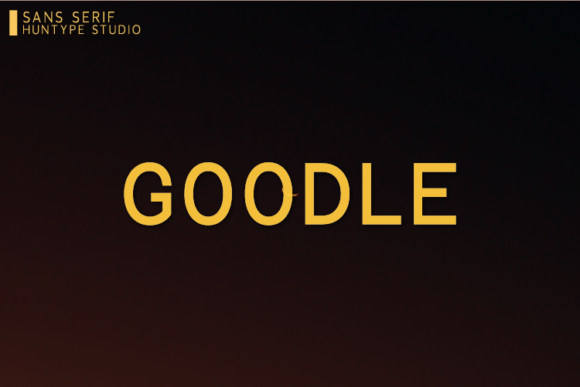
Have you ever stared at a blank canvas, struggling to find the right font to bring your design to life? I’m sure you have. We’ve all been there – pouring over font options, tweaking sizes and styles, and still, nothing seems quite right. But what if I told you that there’s a font that can effortlessly elevate your designs and make them stand out from the crowd?
Enter the Goodle Font, a sleek and modern sans serif font designed to complement a wide range of creative projects. With its clean lines and minimalist aesthetic, the Goodle Font is the perfect choice for designers looking to add a touch of sophistication to their work.
Goodle Font Key Features
- Unique Characteristics: The font features a unique blend of geometric and organic shapes, resulting in a clean and modern aesthetic.
- Font Metrics: The font’s x-height and cap height are carefully designed to ensure readability and consistency across different weights and sizes.
Goodle Font Review
As a designer, I was excited to dive into the Goodle Font and see what it had to offer. Overall, I found it to be a solid choice for body text and headings, but with some notable limitations.
- Goodle Font has a clean and modern aesthetic, making it perfect for a wide range of digital applications.
- The font’s x-height is well-balanced, ensuring readability even at smaller font sizes.
- The font’s weight system is comprehensive, with a clear distinction between light, regular, and bold weights.
- The font lacks a clear personality or unique character, making it feel somewhat generic.
- The italic and bold italic weights feel somewhat inconsistent, which can be distracting in certain contexts.
- The font’s support for non-Latin scripts is limited, which may be a concern for designers working with global audiences.
Overall, I would give the Goodle Font a solid 3.5 out of 5 stars. While it’s a reliable choice for many applications, its limitations hold it back from truly standing out in a crowded market. With some further development and refinement, I think the Goodle Font has the potential to become a real contender in the world of digital typography.
To get the most out of the Goodle Font, use it in combination with other creative elements, such as bold text or colorful backgrounds.
Consider using the Goodle Font for headings or titles to add a touch of elegance to your designs.
The Goodle Font is ideal for:
1. Branding and logo design.
2. Creative writing and publishing.
3. Digital marketing and social media graphics.
4. Print design and advertising materials.